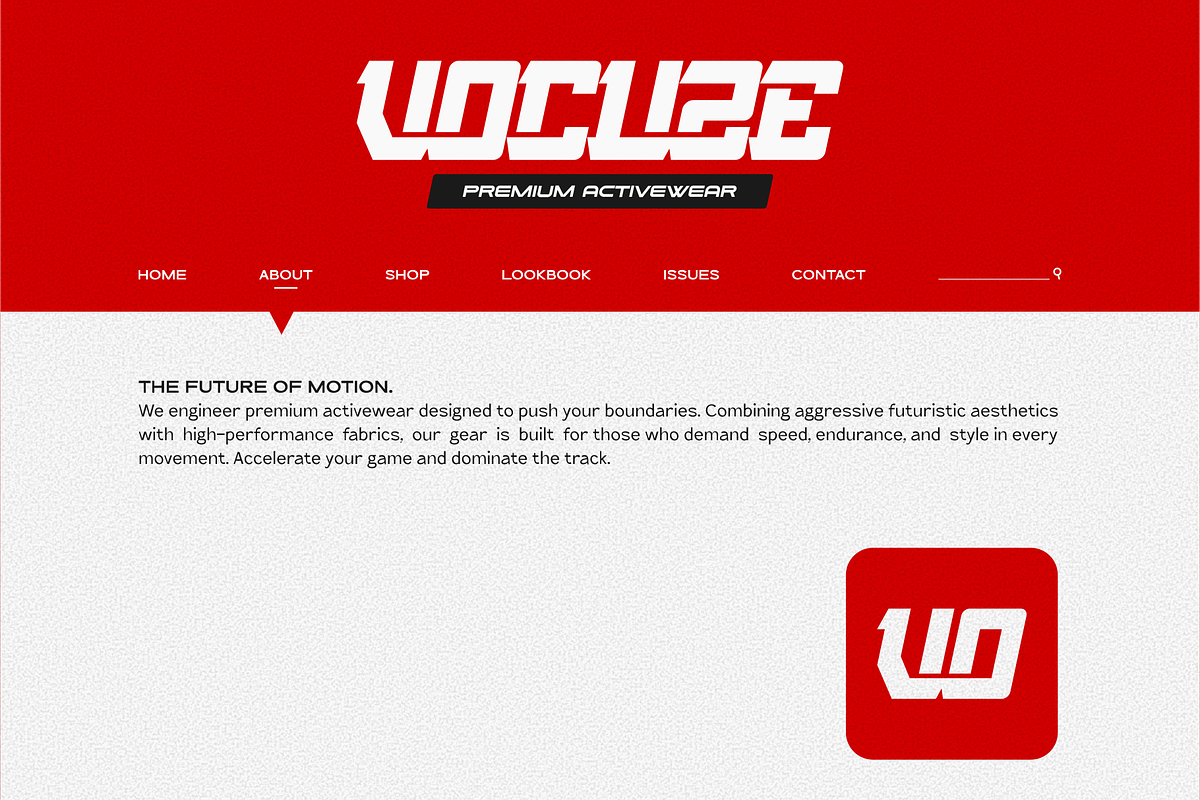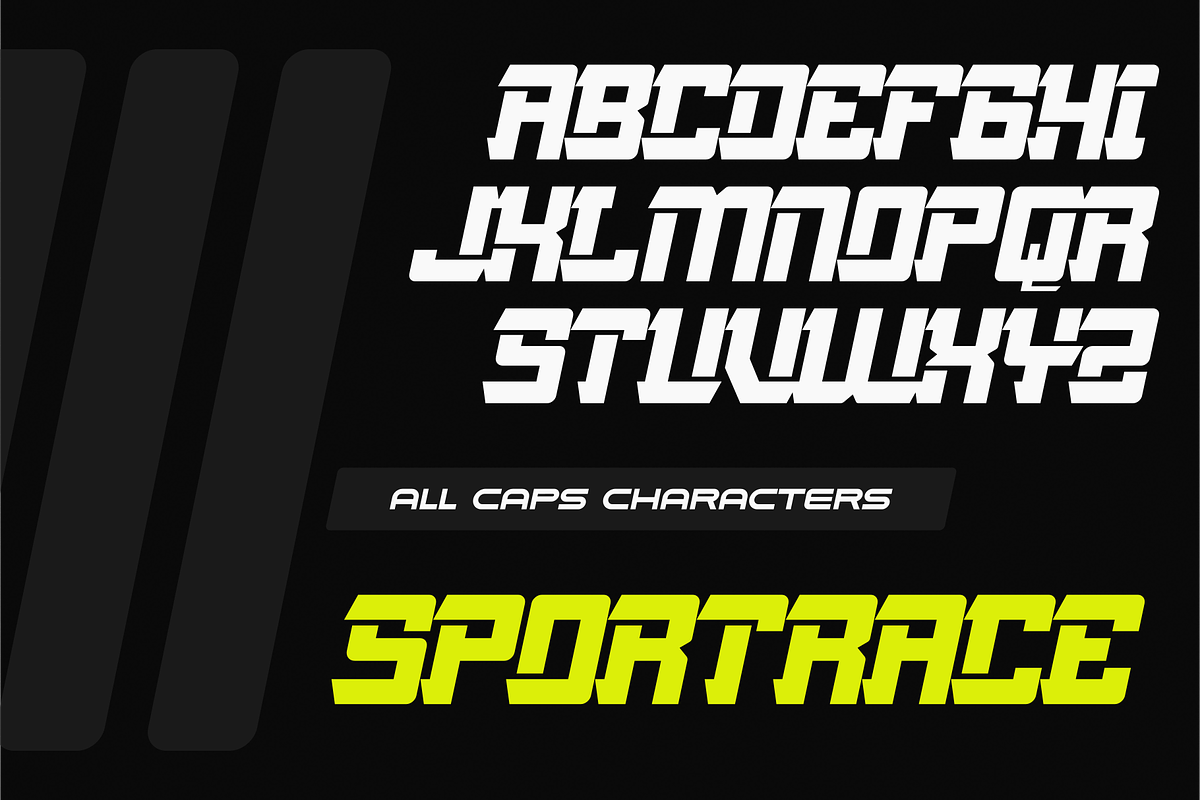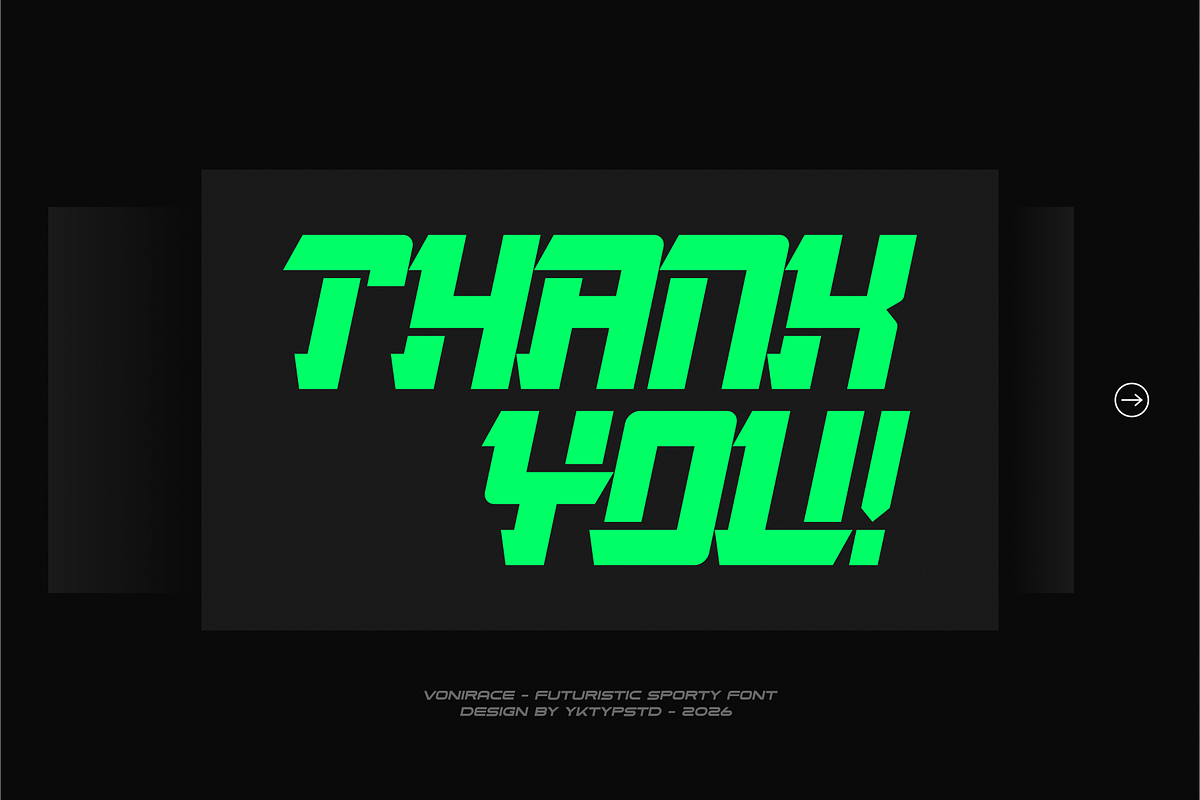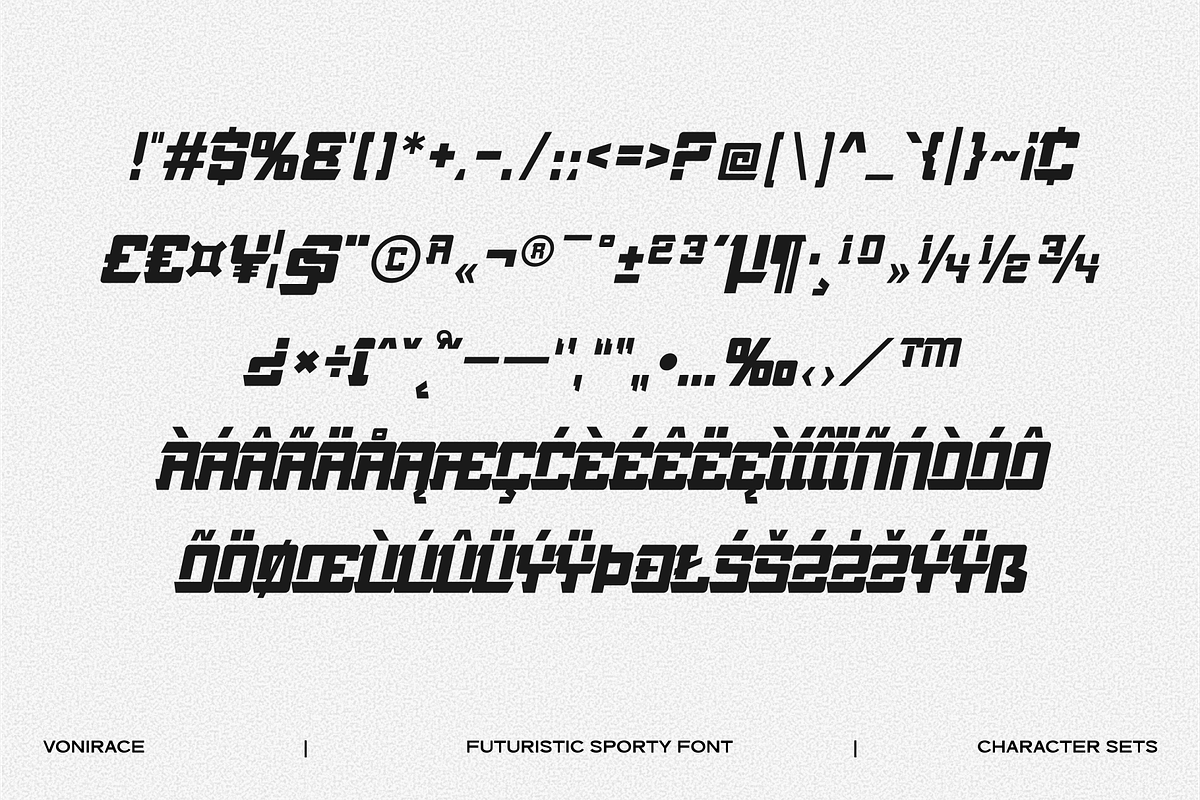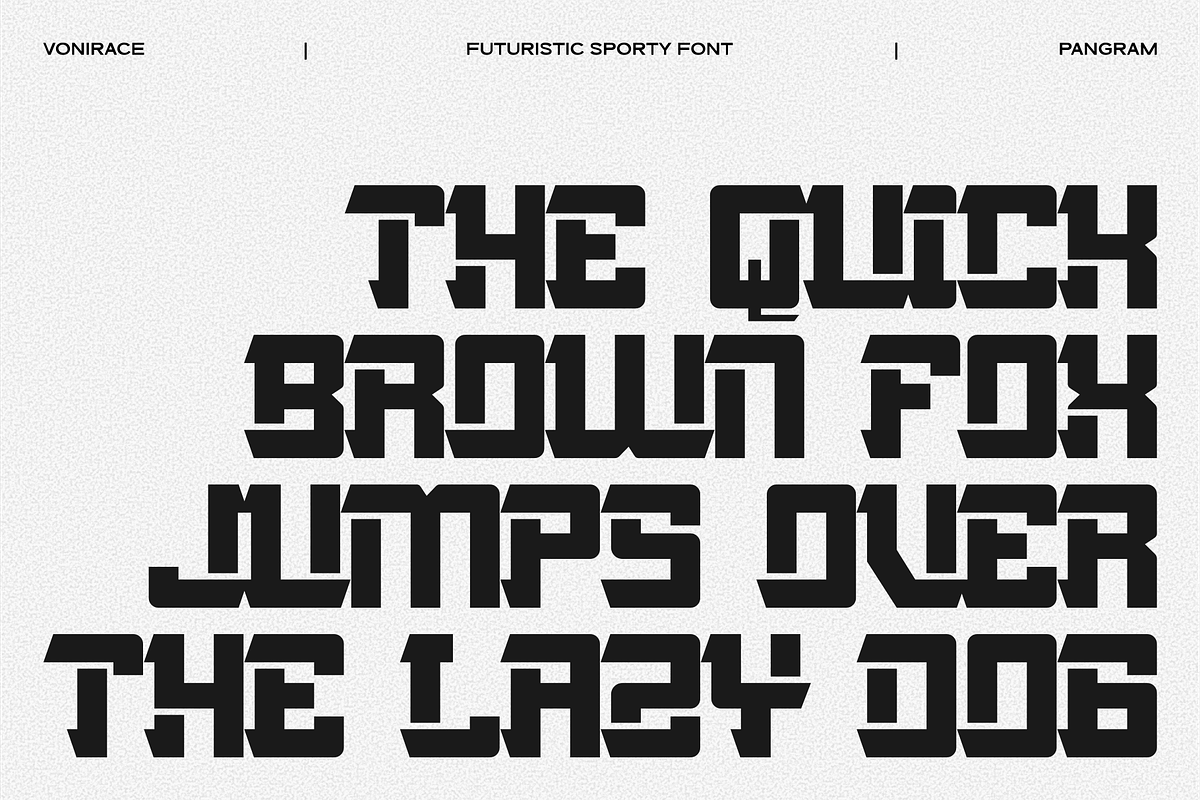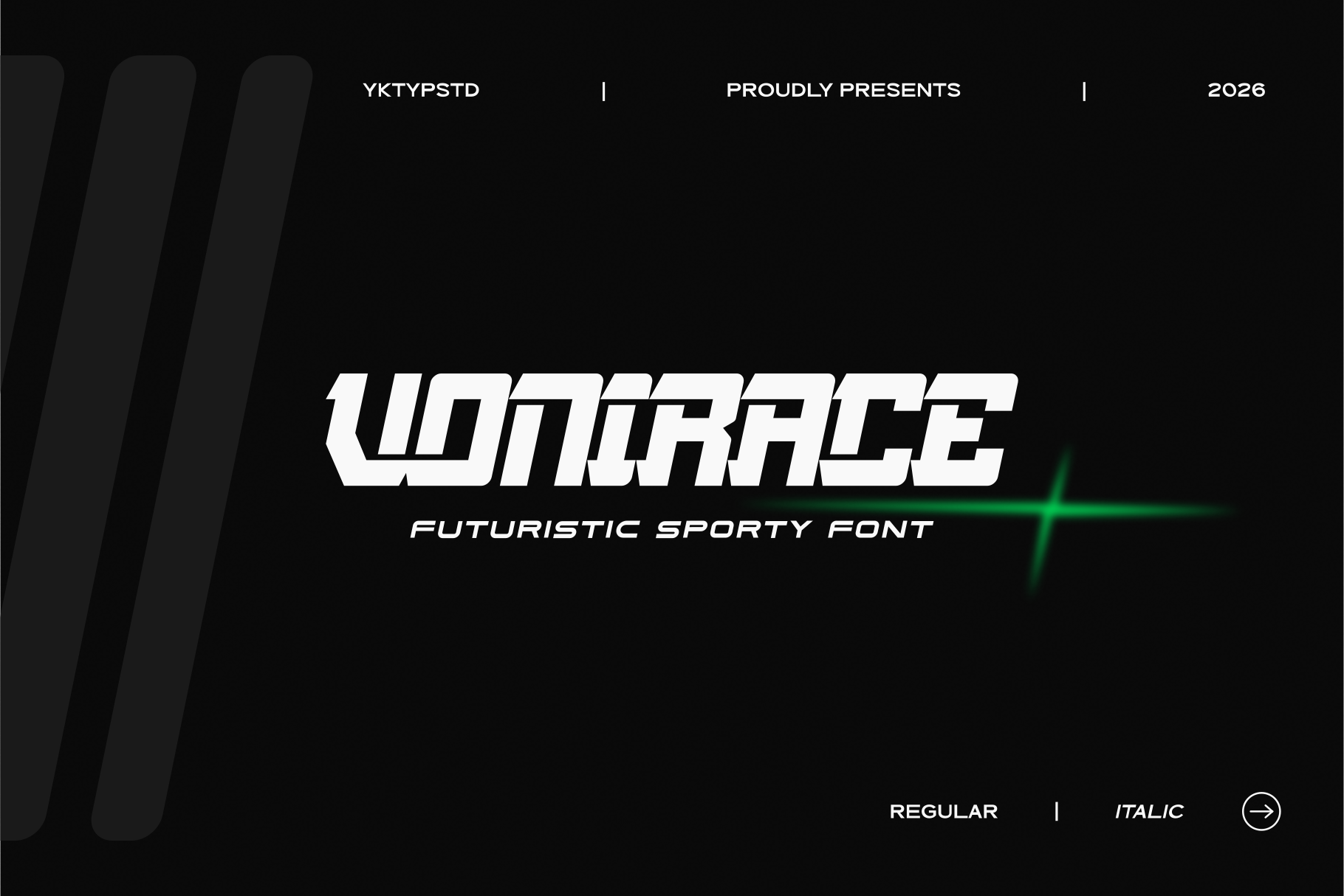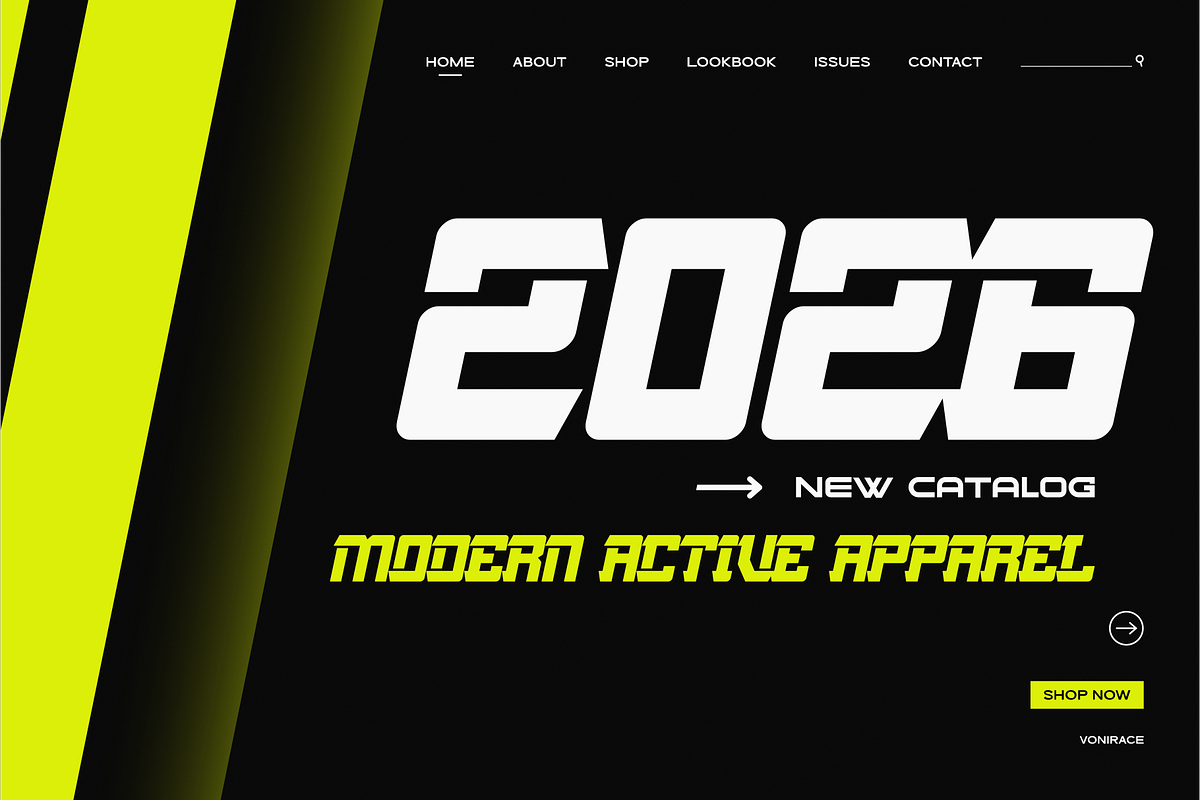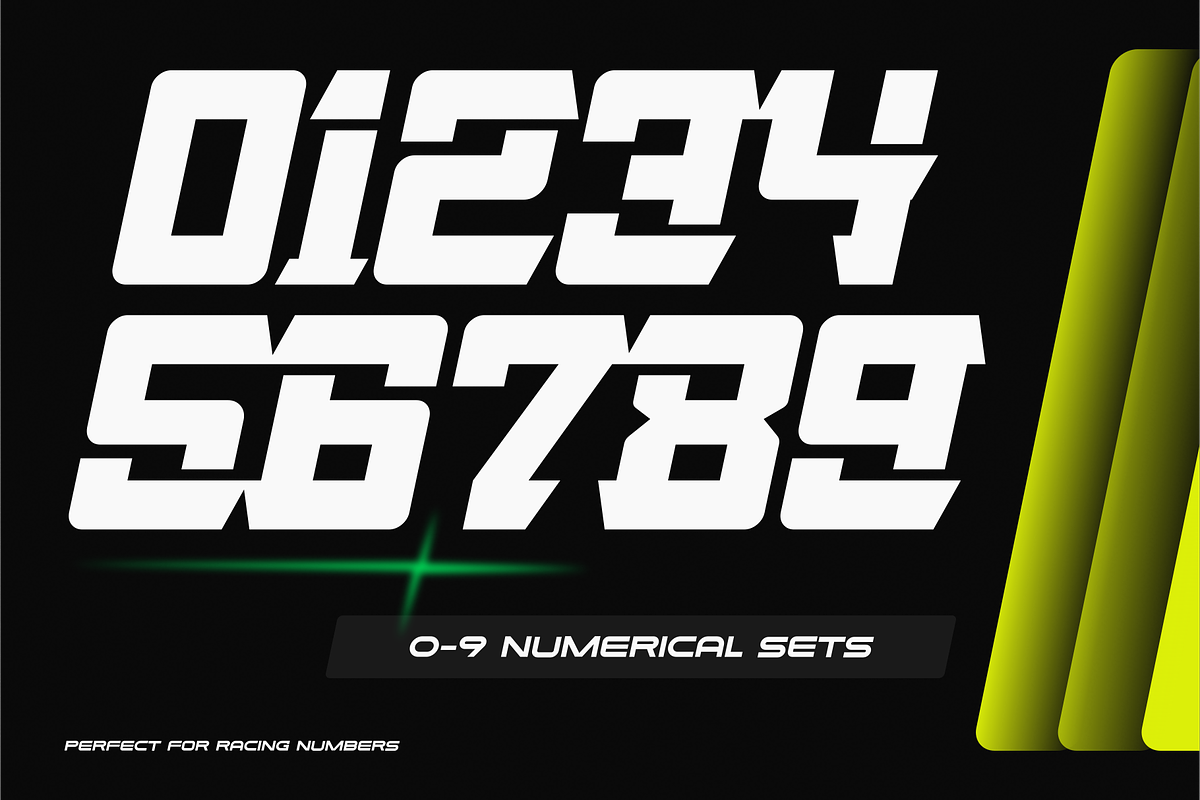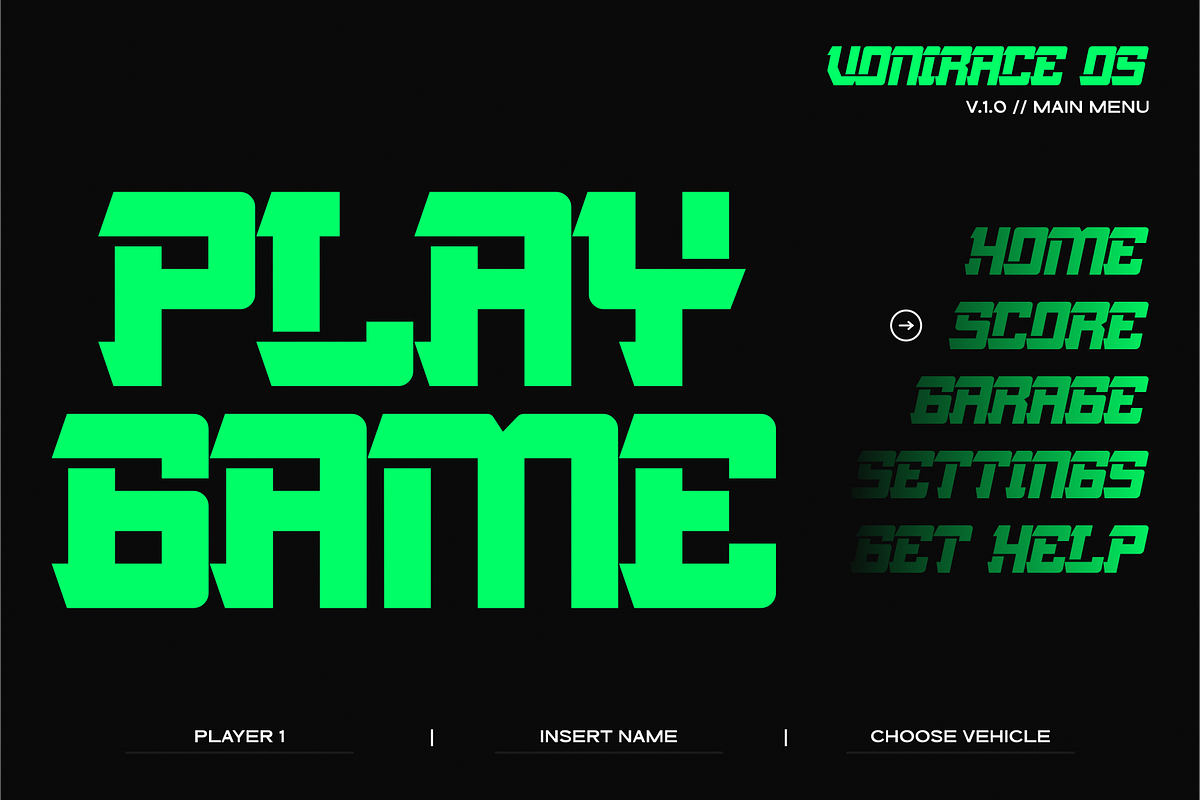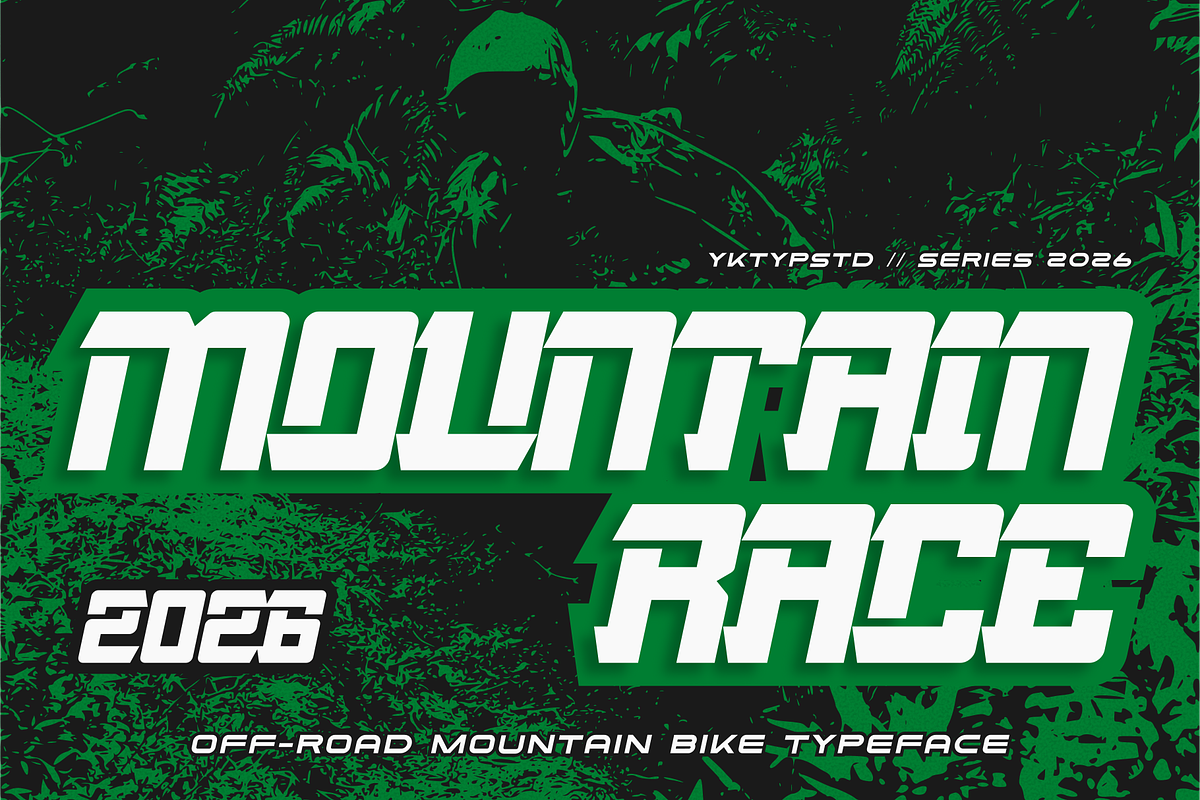
Vonirace - Futuristic Sporty Font
Feel the ultimate rush of speed and tech with VONIRACE! This futuristic, sporty display font is tailor-made for anyone looking to create high-octane designs, bold branding, and modern automotive aesthetics. Featuring sharp angular cuts and a thick geometric structure, VONIRACE will instantly make your work stand out and steal the spotlight.
VONIRACE comes with 2 styles that you can mix and match: Regular (Upright) for a solid, sturdy vibe, and Italic (Slanted) to bring out that raw racing energy and dynamic motion. This font is a perfect match for e-sports logos, sports apparel, racing numbers, jersey designs, sci-fi gaming interfaces, and trendy tech branding.
All Caps character set (A-Z)
Full numbers set (0-9)
Punctuation & basic symbols included
Available in 2 styles: Regular & Italic
Perfect for logos, headers, posters, and merchandise.